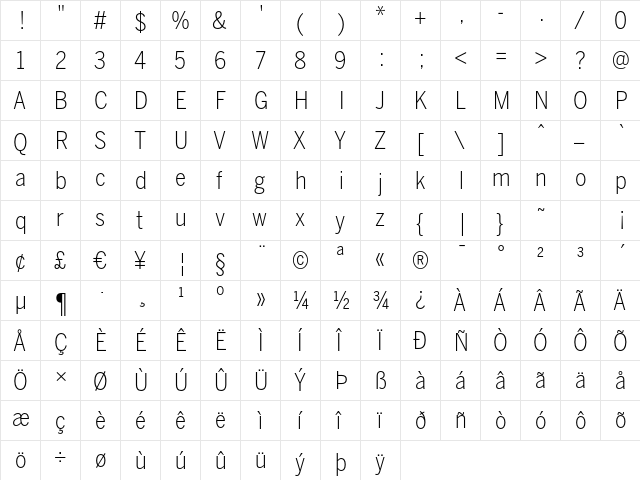
BentonSans Cond Light Regular Font Preview
| Foundry | The Font Bureau, Inc |
| Designer | Cyrus Highsmith, Tobias Frere-Jones, and Font Bureau |
Design Context for BentonSans Cond Light Typeface
BentonSans Cond Light offers clean, dependable letterforms without strong stylistic allegiance, making it a practical choice for designers who need flexibility. Its slender proportions lend an understated elegance to any composition. The condensed width makes it efficient for tight spaces without sacrificing legibility.